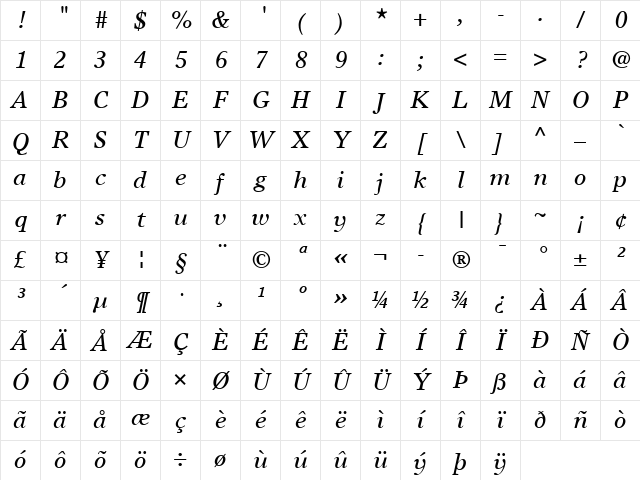
TimesEuropa LT Roman Italic
Design Context for TimesEuropa LT Roman
TimesEuropa LT Roman is a composed and adaptable typeface that performs quietly and consistently across a wide range of design contexts. The slanted form adds forward momentum and visual energy. Its slender proportions lend an understated elegance to any composition.